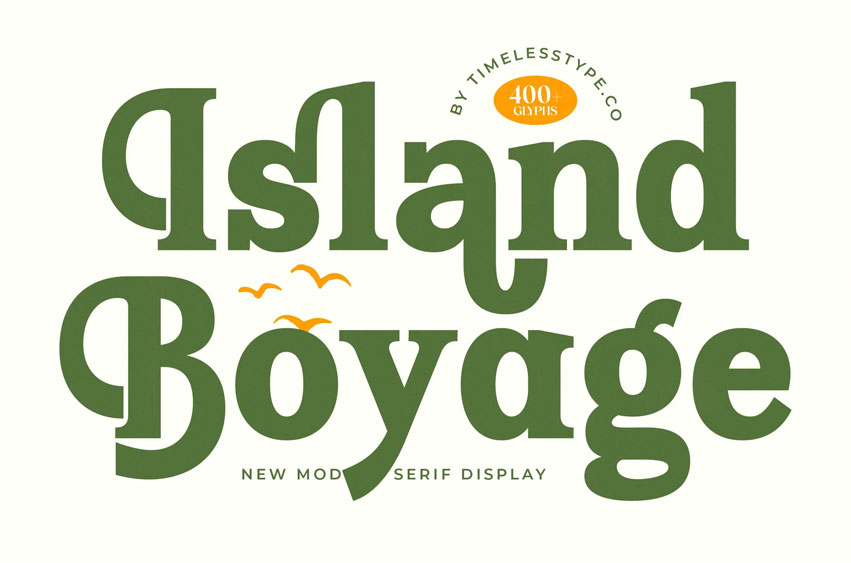
Island Boyage Font
Island Boyage Font is a modern serif display font inspired by tropical adventures, ocean breezes, and timeless retro elegance. With over 400 glyphs, this typeface combines bold structure with playful curves, making it perfect for branding, packaging, travel posters, magazine headlines, and logo design.
Each letter carries a sun-kissed charm, blending sophistication with a relaxed island feel. Whether you’re designing for beachwear brands, coastal cafés, or editorial layouts, Island Voyage brings warmth, authenticity, and bold creativity to your typography.